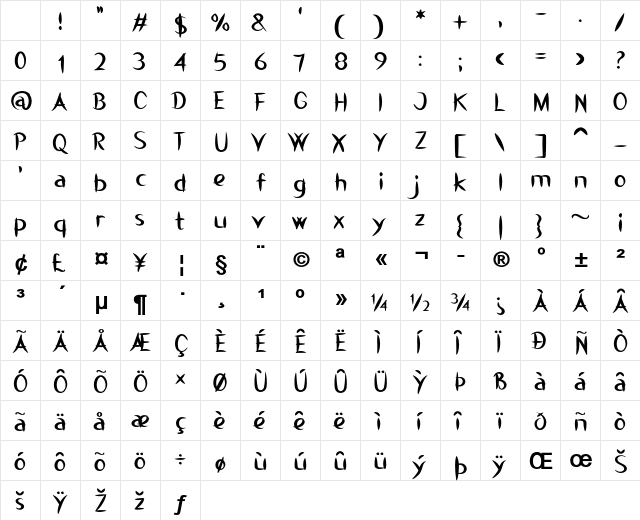
Complete Rangoon Bold glyph index. Displaying only characters natively supported by Rangoon Bold font.
Rangoon is a composed and adaptable typeface that performs quietly and consistently across a wide range of design contexts. Its bold stroke weight gives it real presence on the page.